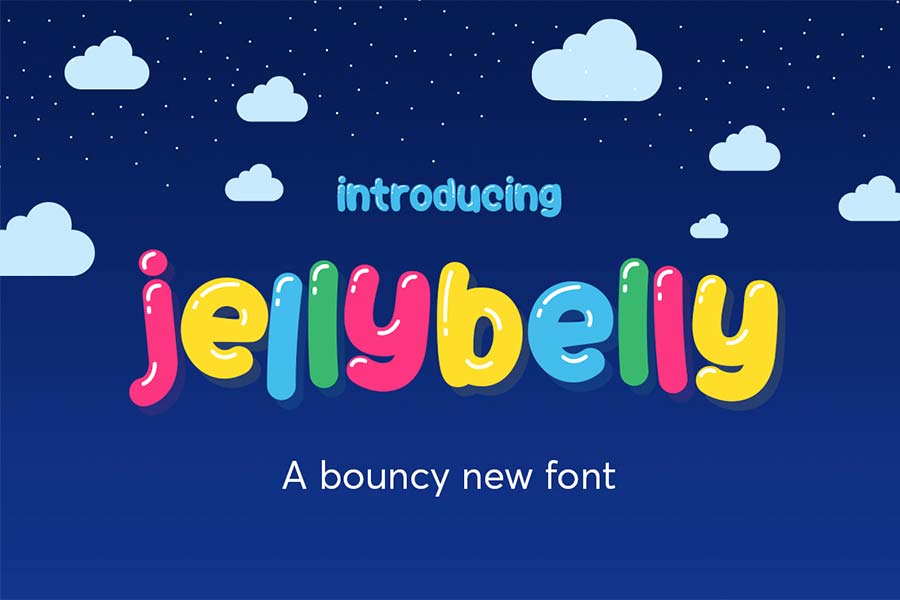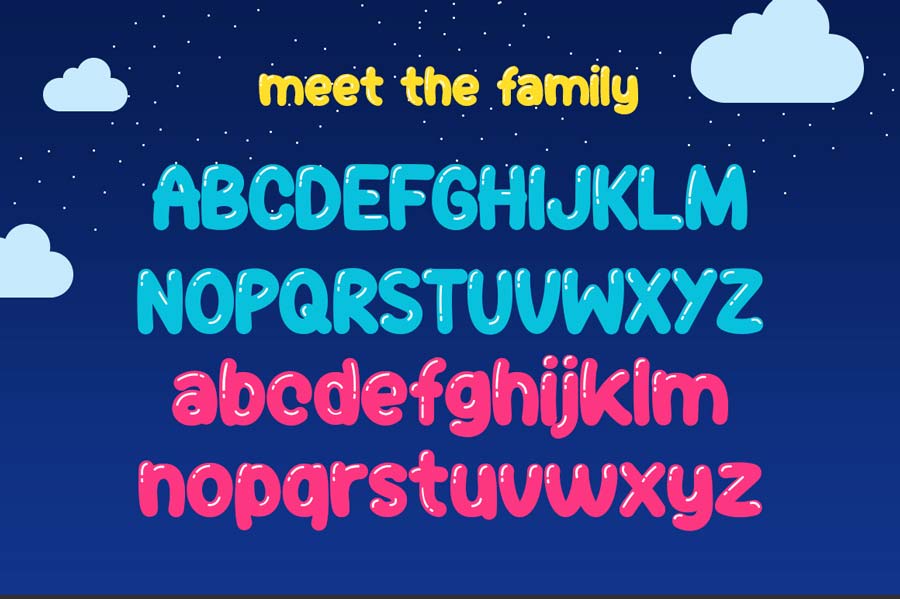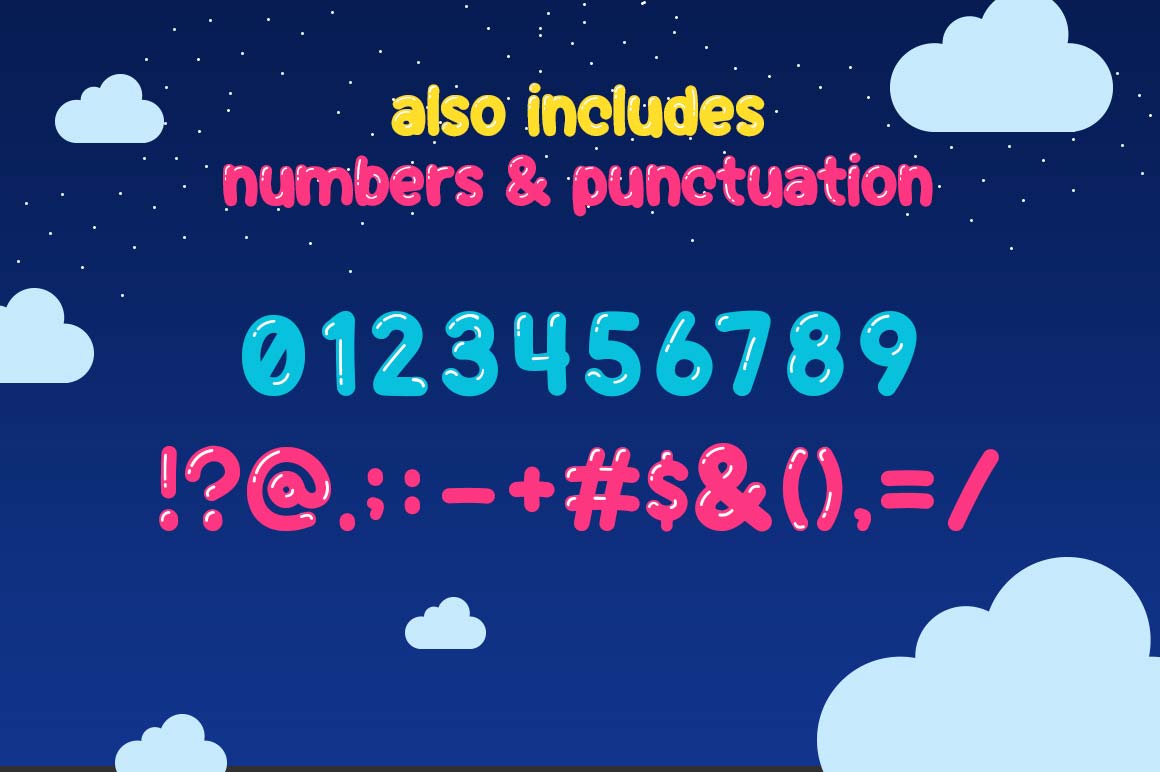
Jelly Belly is a rounded blubbly font free for download. Each letters comes with shining highlights, reminds me of the long balloons that can be folded into different shapes including letters. The shining effect can be left blank or filled with other colors too.